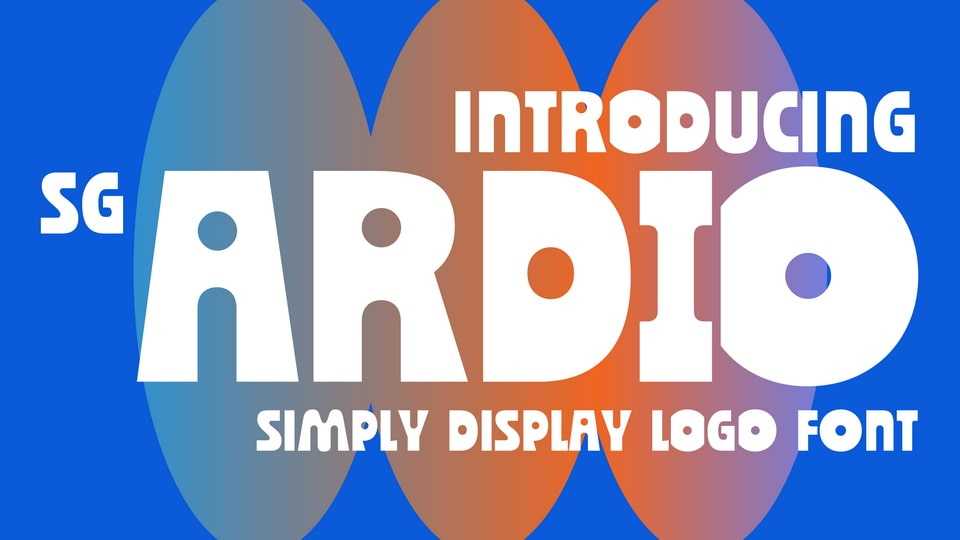
Download SG Ardio, a display logo font is your key to striking designs, captivating posters, and unforgettable headlines. Unleash the Bold Brilliance of SG Ardio: where simplicity meets courage.